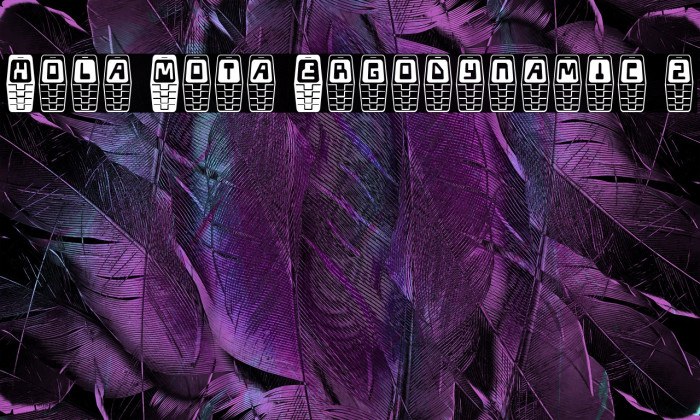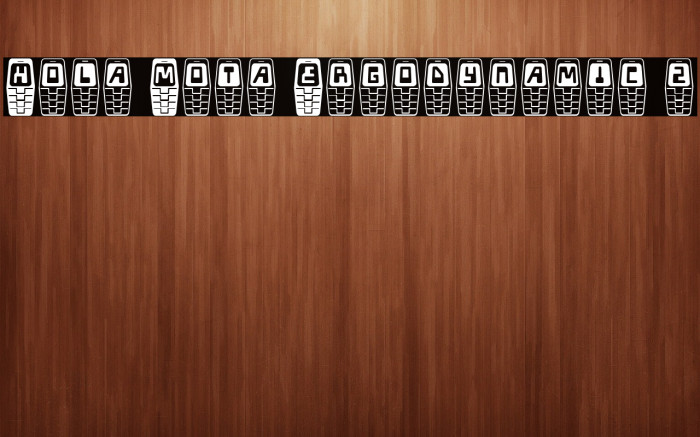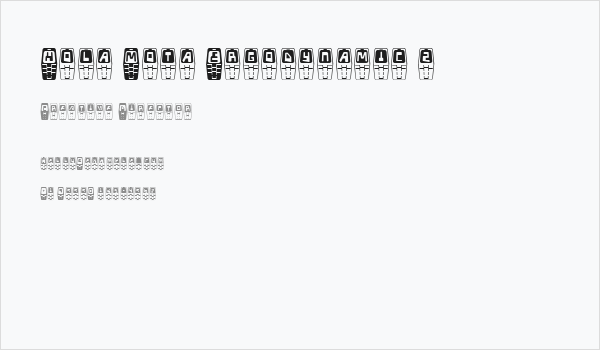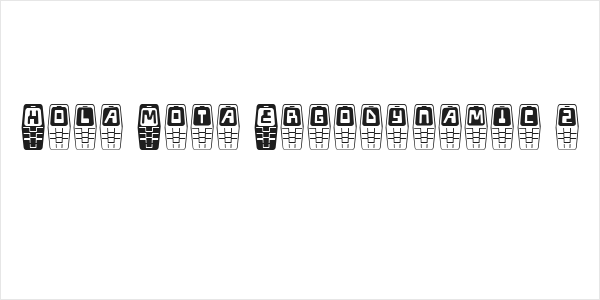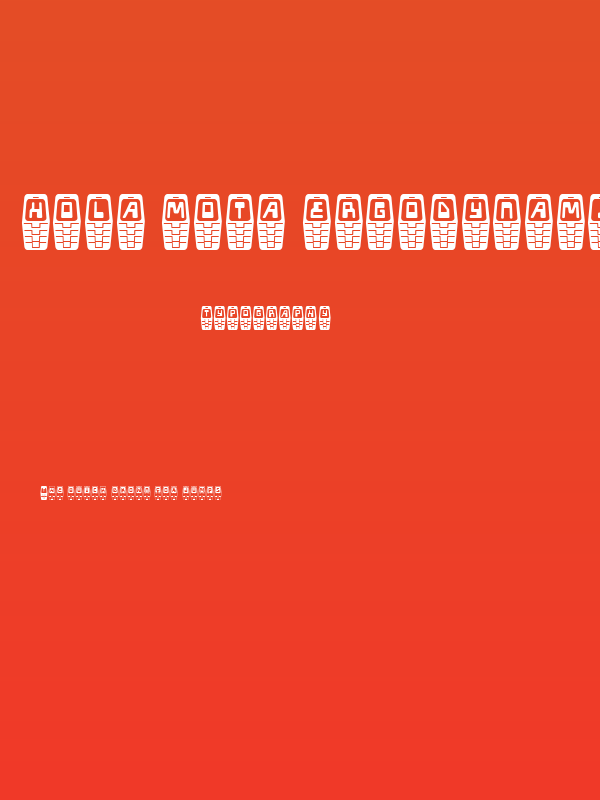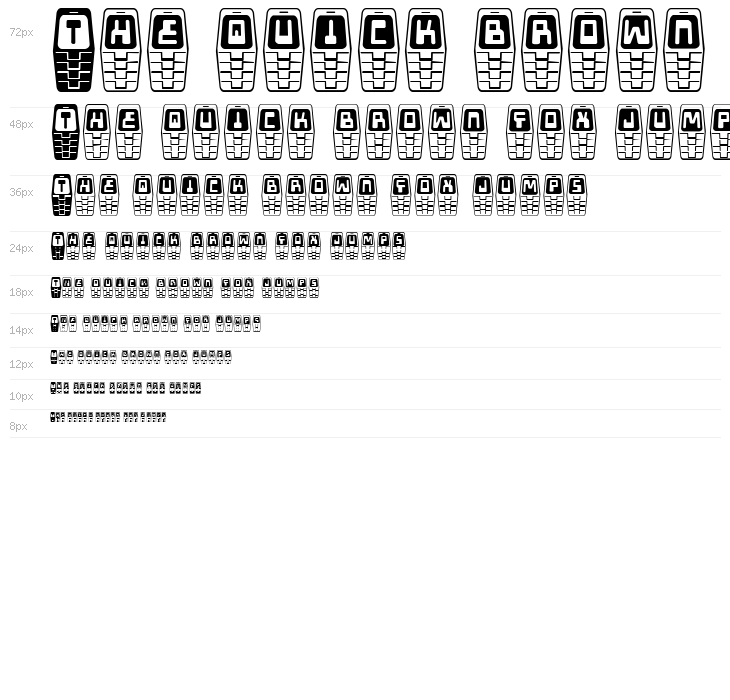
Hola Mota Ergodynamic 2 Font
Hola Mota Ergodynamic 2 Description
This font features a bold, geometric style with a futuristic and digital aesthetic. Each character is enclosed within a coffin-like shape, creating a unique and edgy appearance. The letters and numbers are designed with thick strokes and angular edges, giving them a strong presence. The font is highly stylized, with a modern and unconventional look that stands out in any design. Its distinct form makes it suitable for projects that require a bold statement or a tech-inspired theme.
| Proposed Projects | Ideal for video game titles, tech-themed posters, sci-fi book covers, and edgy branding projects. |